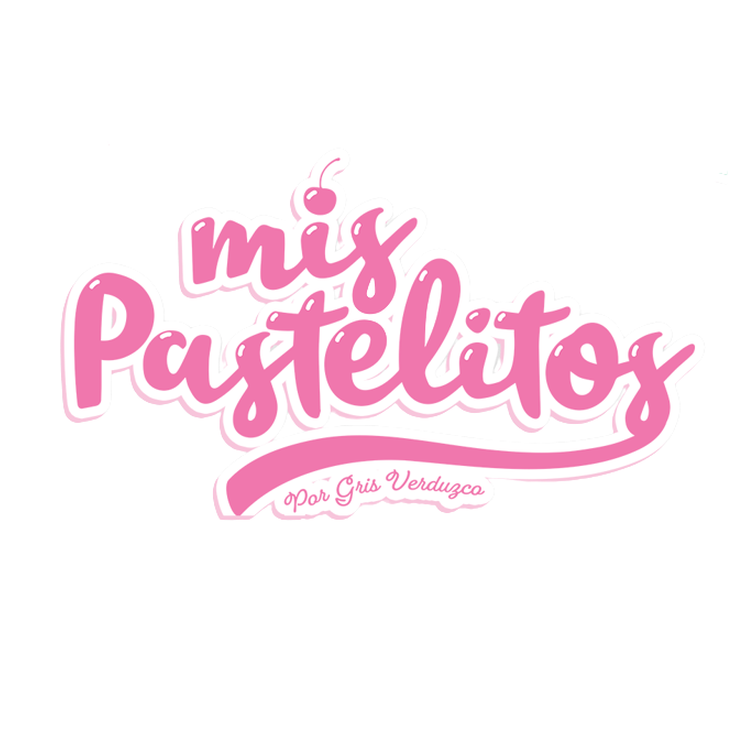
Mis Pastelitos Font
Emil Bertell's Takeaway font family was likely utilized to design the logo. The font used for the text "Por Gris Verduzco" resembles Letterhend Studio's Kingbirds, which is a monoline script featuring six styles. A free demo version of Kingbirds is available for download here at FontGet, while the full font family can be purchased from here.